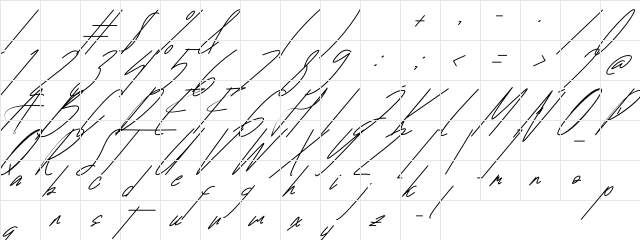
Famanthalio Regular
Design Context for Famanthalio Typeface
Famanthalio is a composed and adaptable typeface that performs quietly and consistently across a wide range of design contexts.
Pro Tip: Use Famanthalio in both headline and body roles to test its range before committing to a single application.